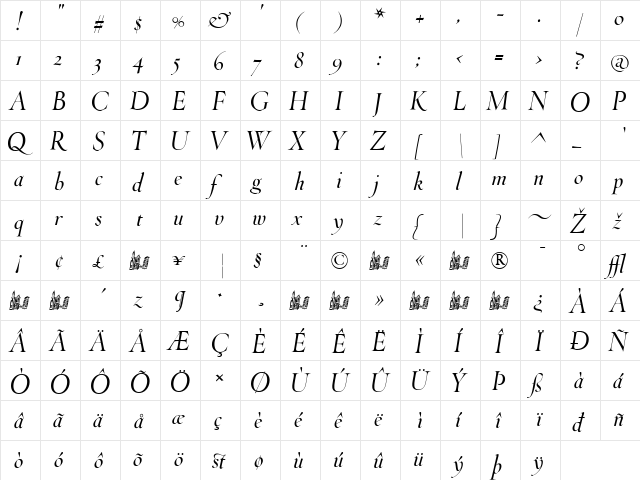
ThrohandRegular Regular
Design Context for ThrohandRegular Typeface
ThrohandRegular flows with the natural rhythm of handwritten lettering, making it ideal for designs that call for warmth and personal expression.
Font Pairing: Combine ThrohandRegular with a simple geometric sans for maximum contrast — the tension between flowing curves and clean structure is a classic typographic pairing.
Pro Tip: Use ThrohandRegular for short runs of text — names, titles, or taglines. Extended body copy in script faces tires the eye quickly.